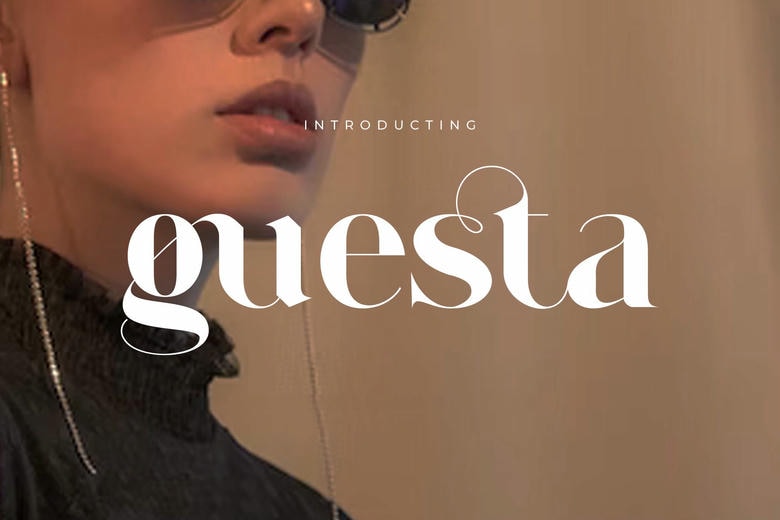
Guesta Font
Guesta is a chic and charming serif font. No matter the topic, this font will be an incredible asset to your fonts’ library, as it has the potential to elevate any creation. The free version provides all uppercase and lowercase letters and a few special characters too.
Guesta Serif Font